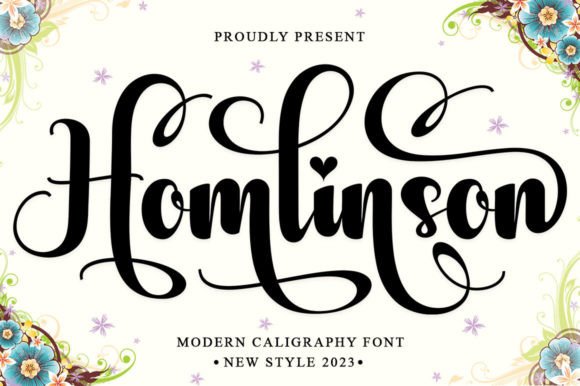
Step into the realm of artistic brilliance with Homlinson, a script font family that exudes elegance and charm. Crafted by the skilled hands of Ws Studio, Homlinson is an embodiment of beauty and versatility, ready to transform your design visions into captivating works of art.
With its warm, romantic, and jovial demeanor, Homlinson breathes life into your projects, infusing them with a touch of whimsy and cheer. Its fluid strokes and graceful curves dance across the page, creating a visual symphony that captures the essence of creativity and joy.
Unleash your imagination and let Homlinson guide you on an artistic adventure. Whether you're designing wedding invitations, branding materials, social media posts, or any other creative endeavor, Homlinson will elevate your designs to new heights of sophistication and style.
Harness the power of Homlinson's extensive character set, including glyphs and swashes, to add depth and intrigue to your designs. Explore the endless possibilities of customization and let your creativity soar.
Homlinson is more than just a font; it's an artistic gateway to a world of boundless creativity. Join the ranks of design enthusiasts who have embraced Homlinson's allure and witnessed the transformation of their projects into stunning masterpieces.
Don't let ordinary fonts hold you back. Embrace the magic of Homlinson today and embark on a journey of artistic exploration that will leave you breathless. Allow Homlinson to ignite your passion for design and watch as your ideas blossom into extraordinary works of art.